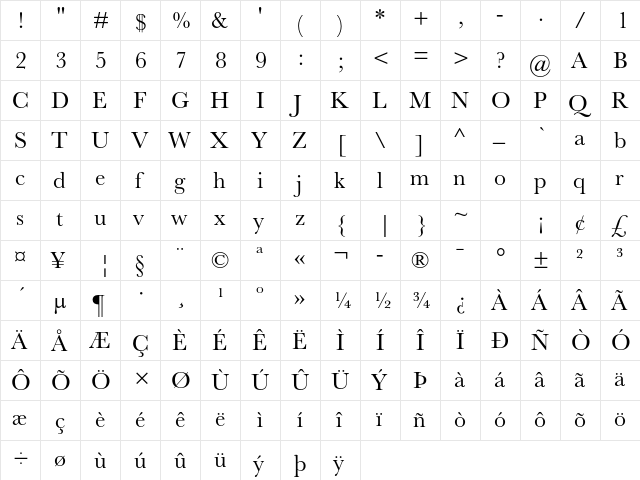
Baskerville MT Std Regular
Design Context for Baskerville MT Std Typeface
Baskerville MT Std offers clean, dependable letterforms without strong stylistic allegiance, making it a practical choice for designers who need flexibility.